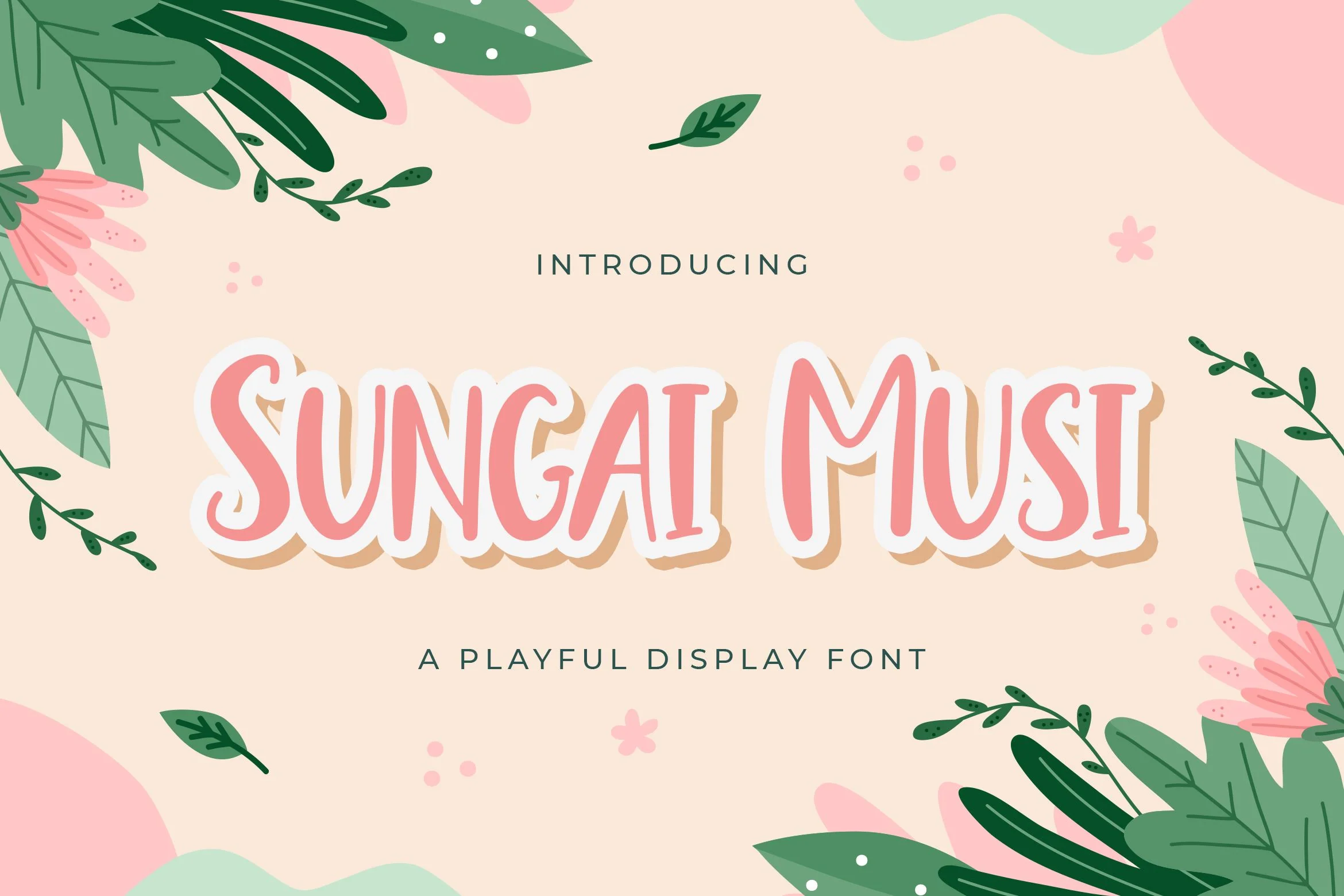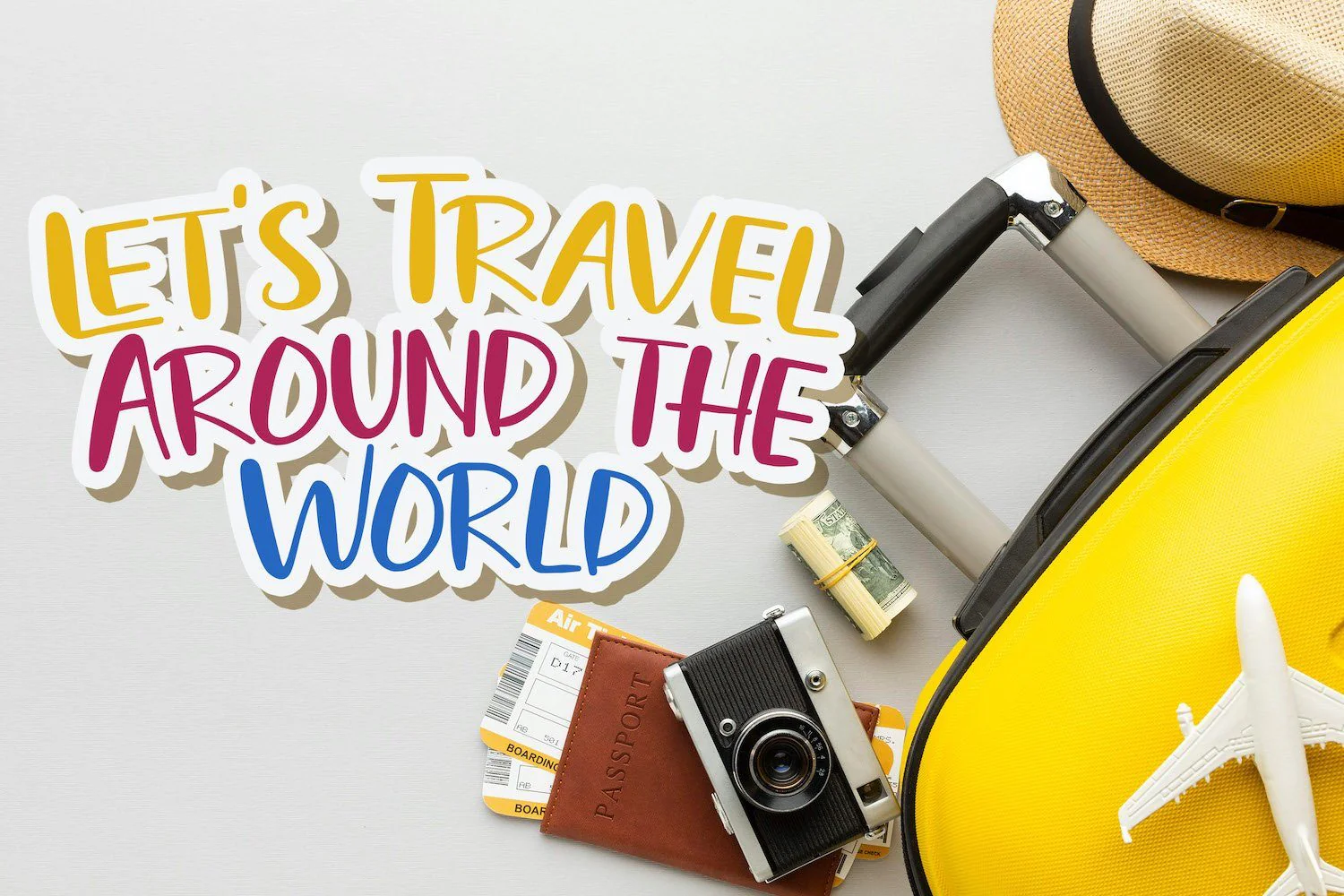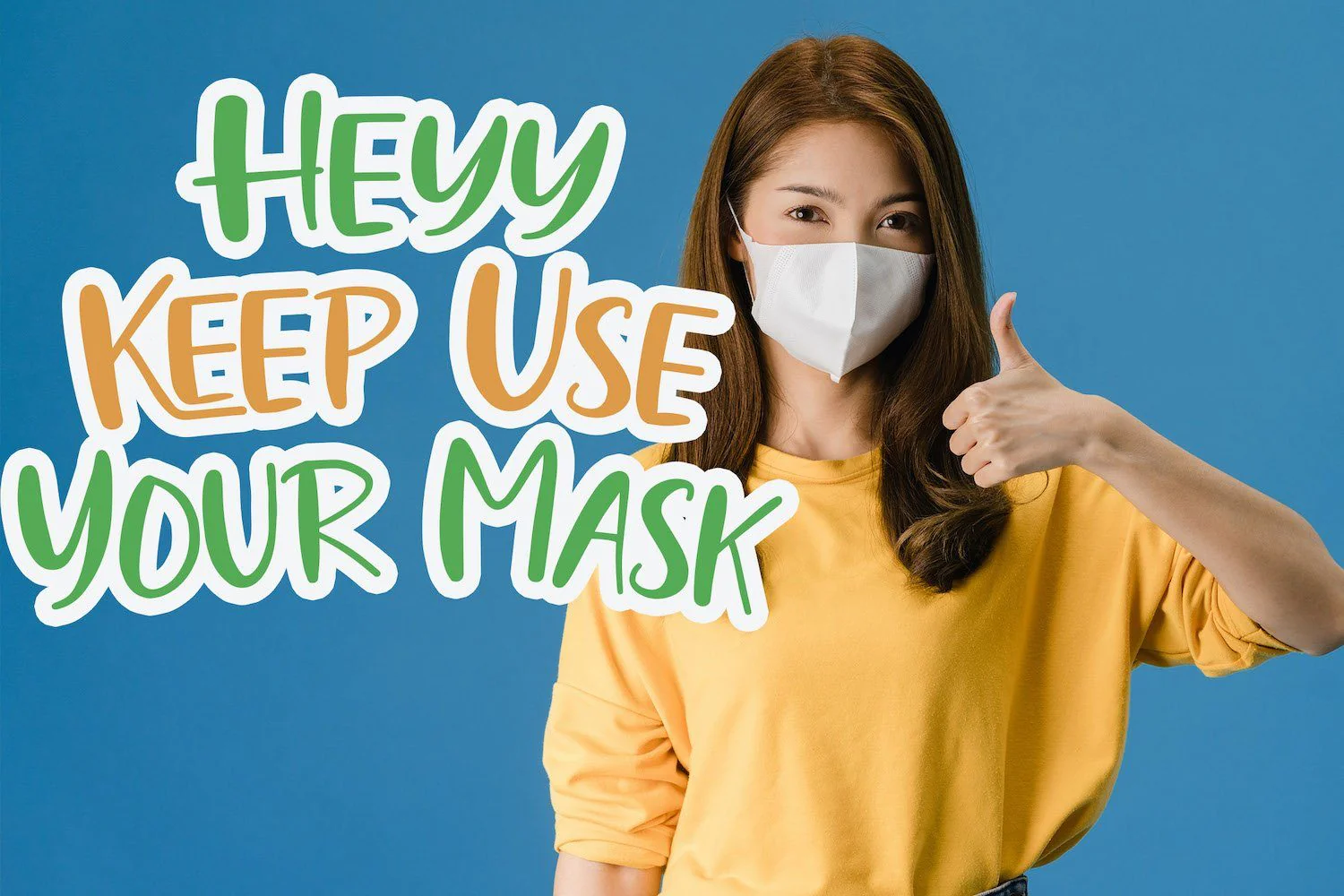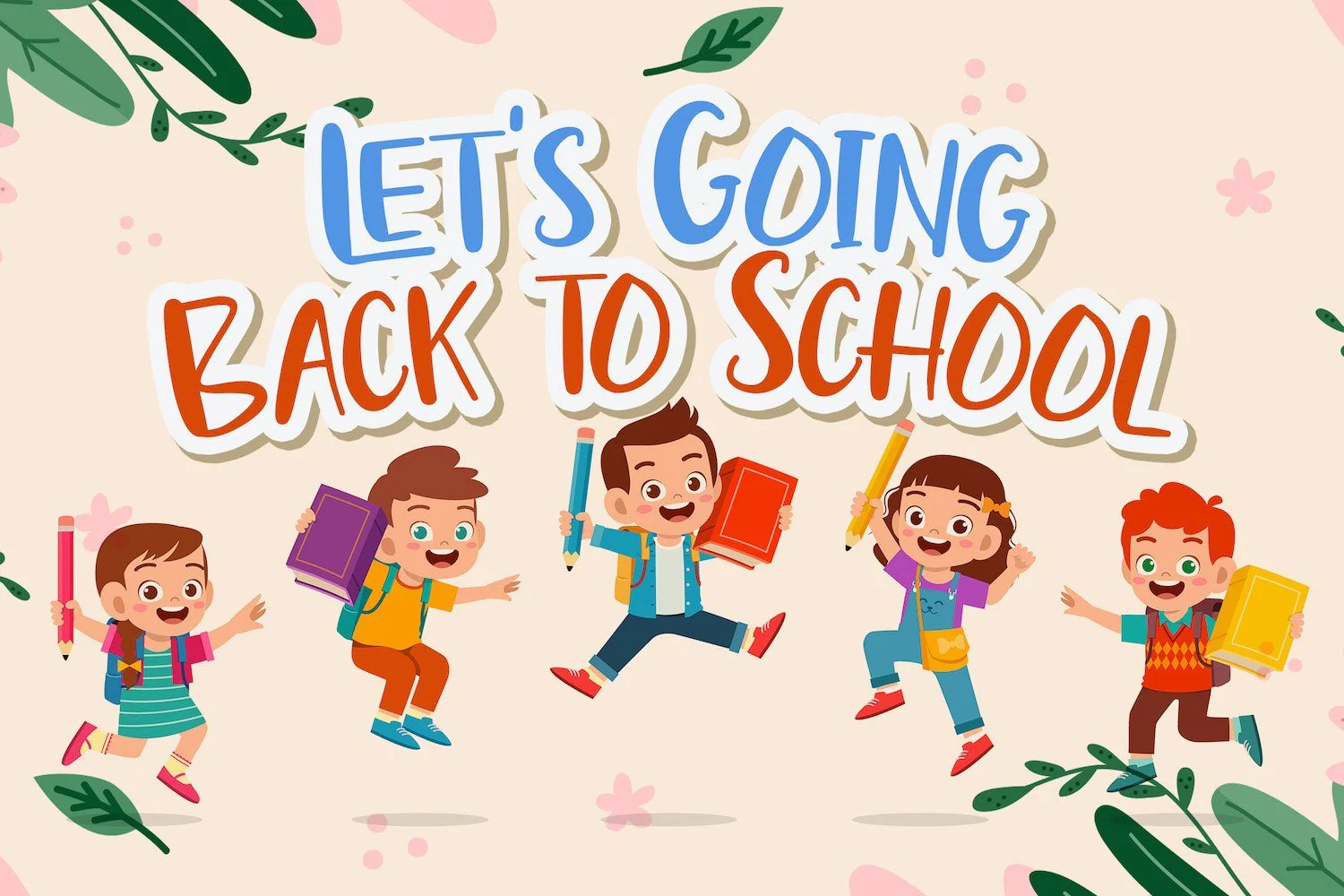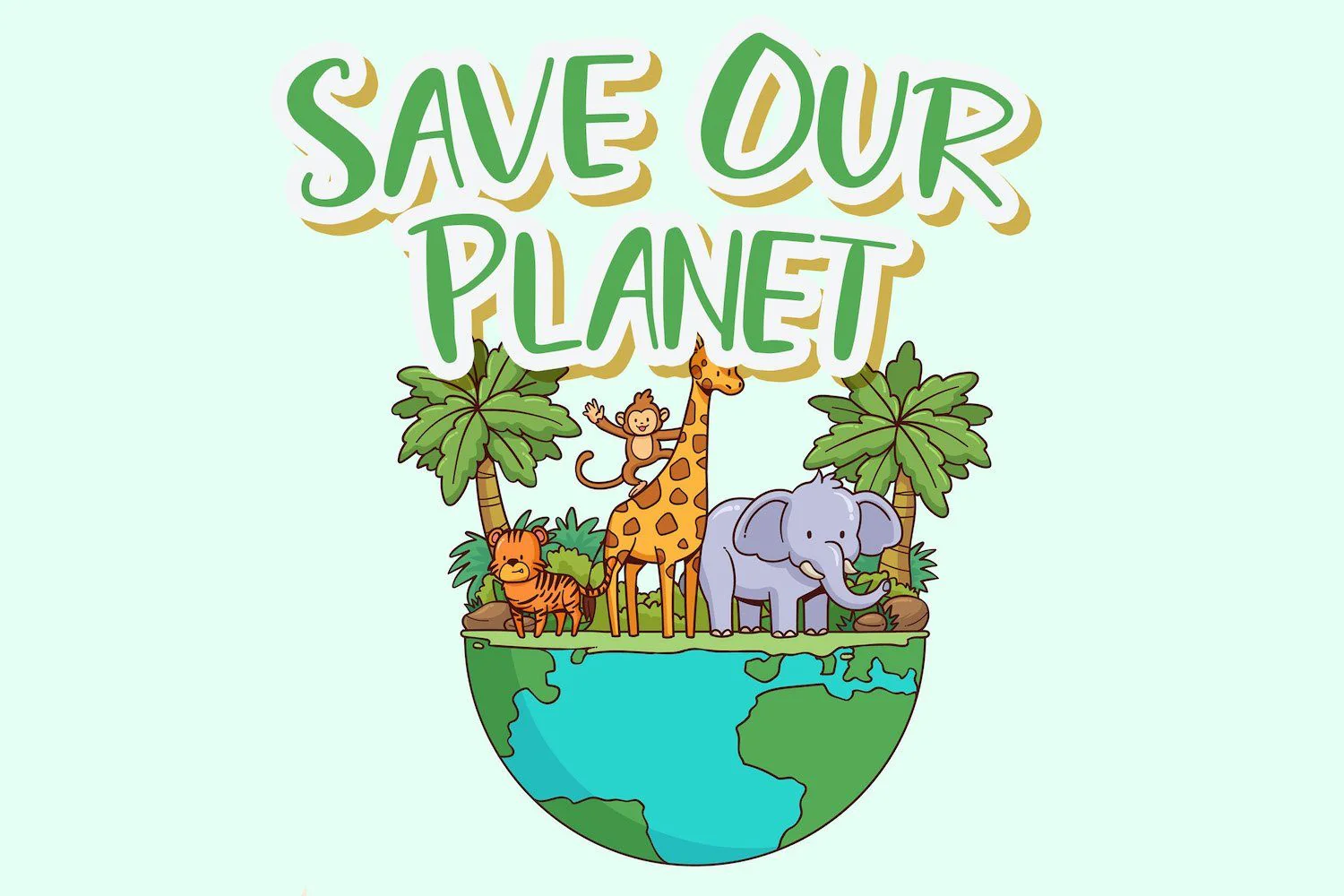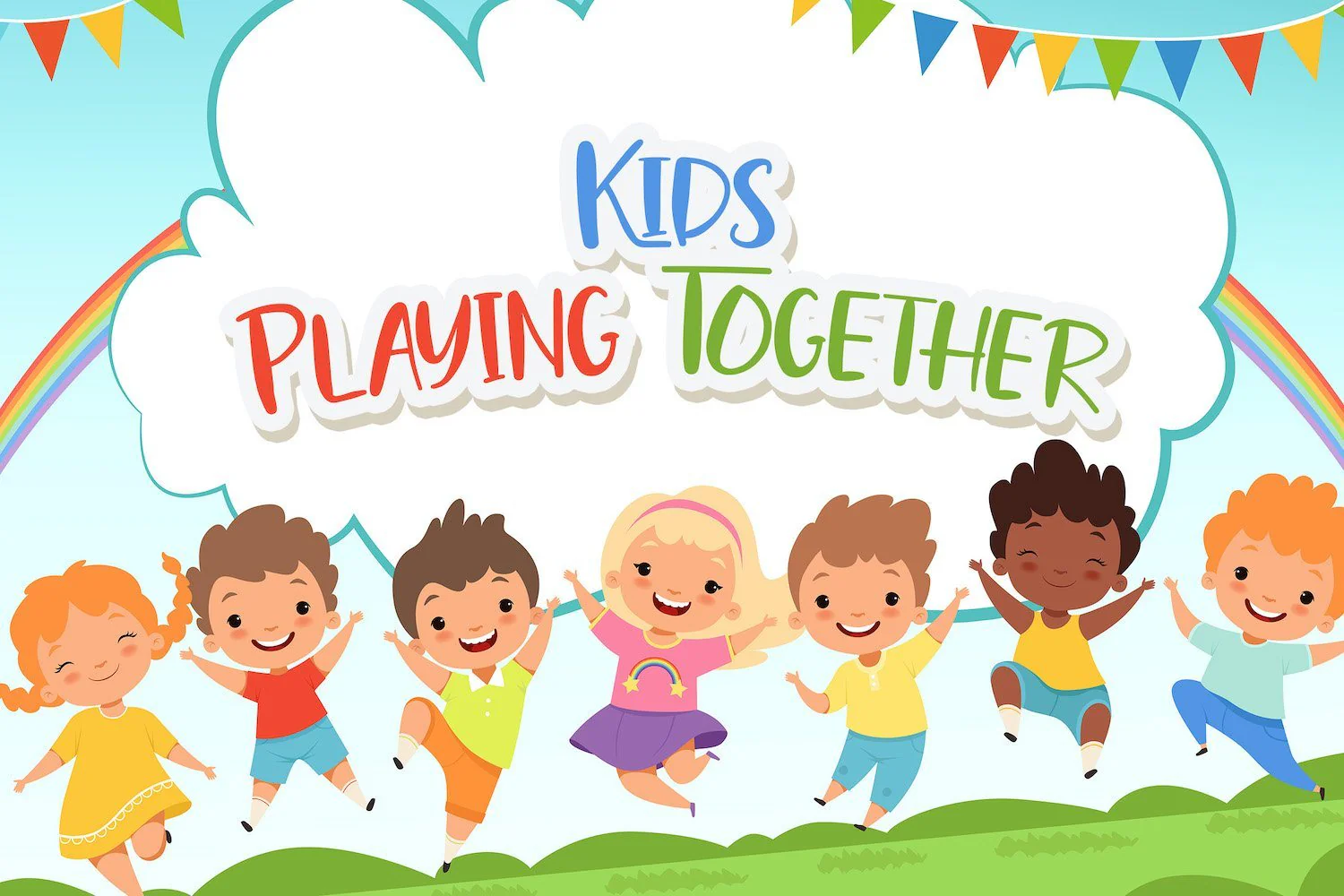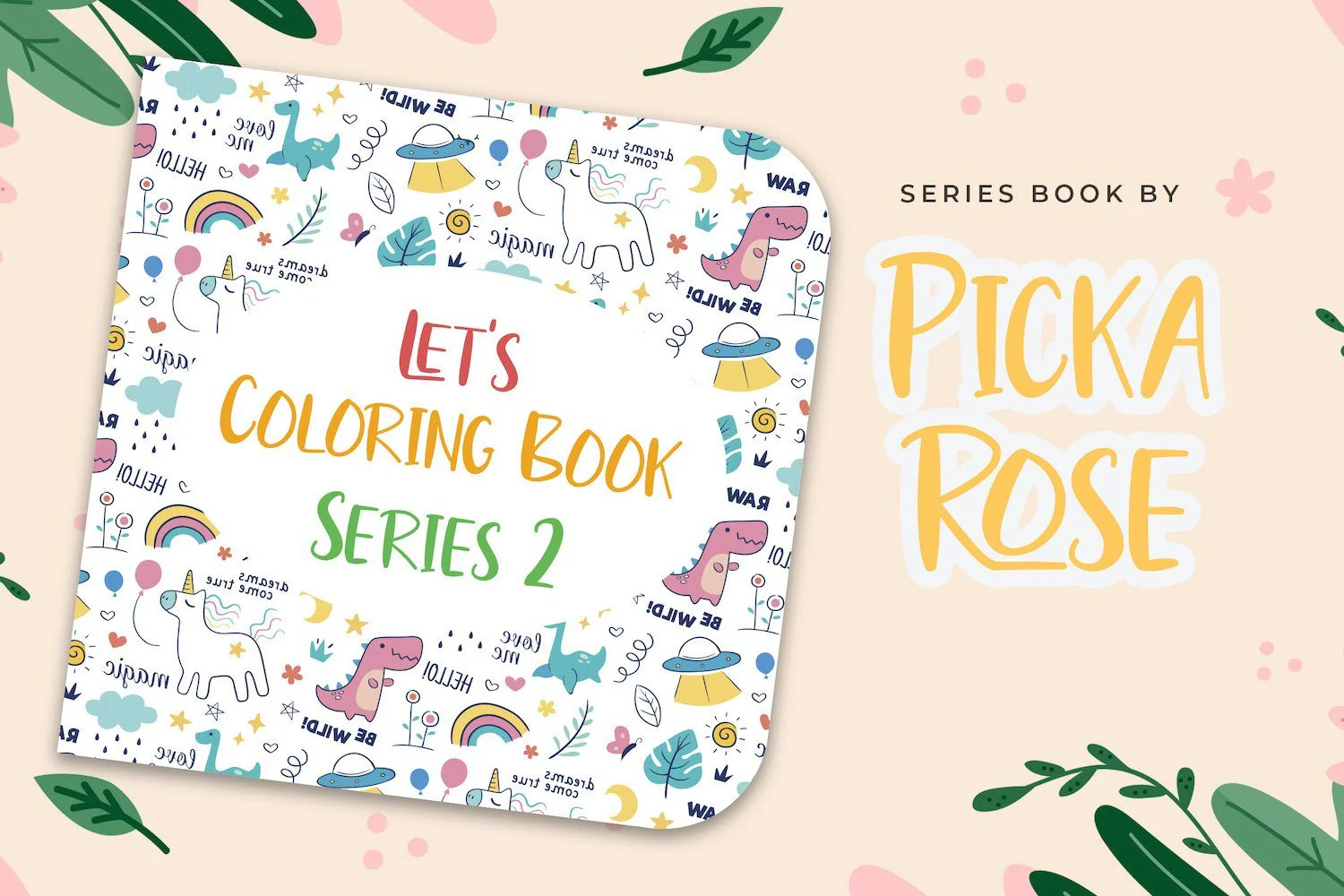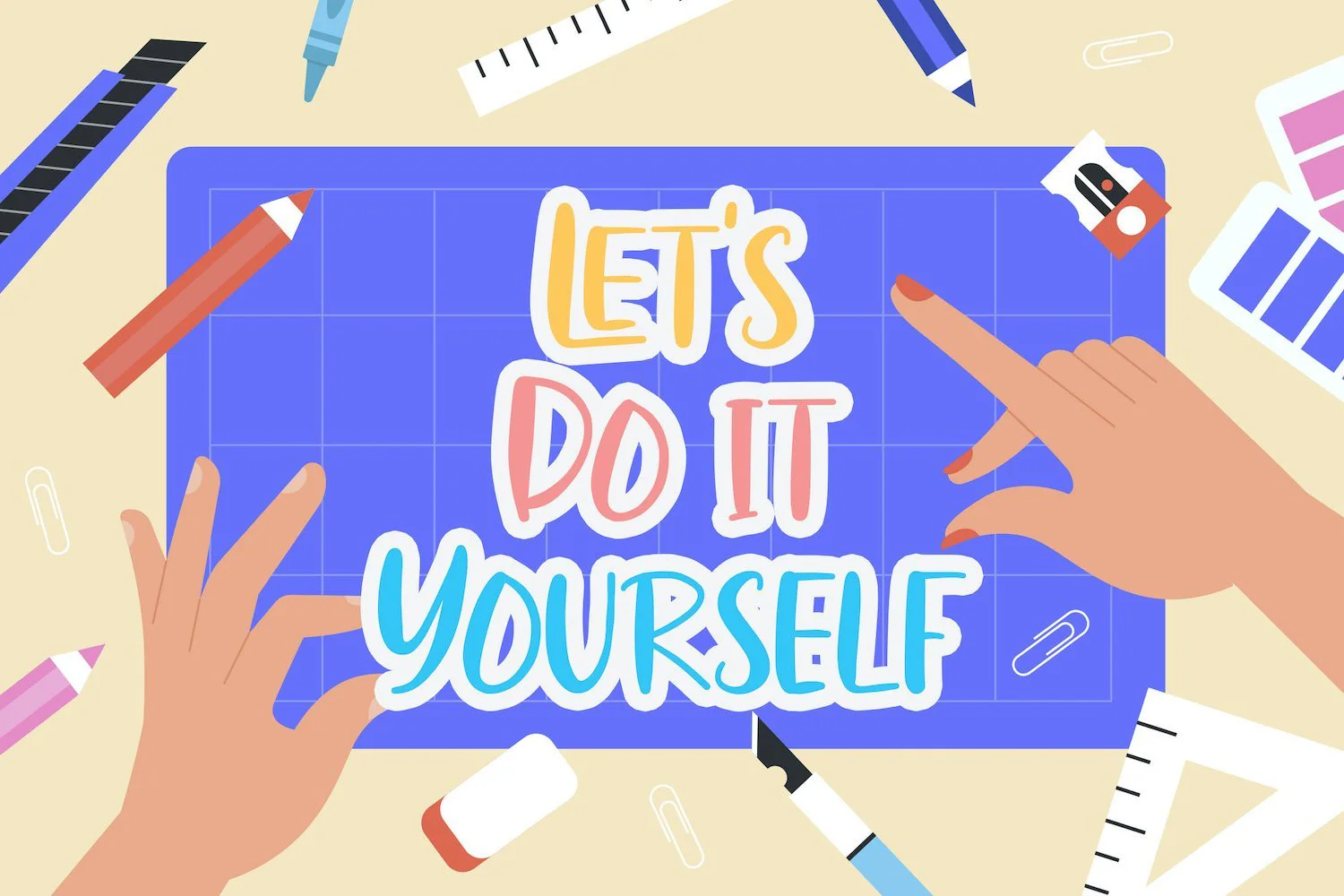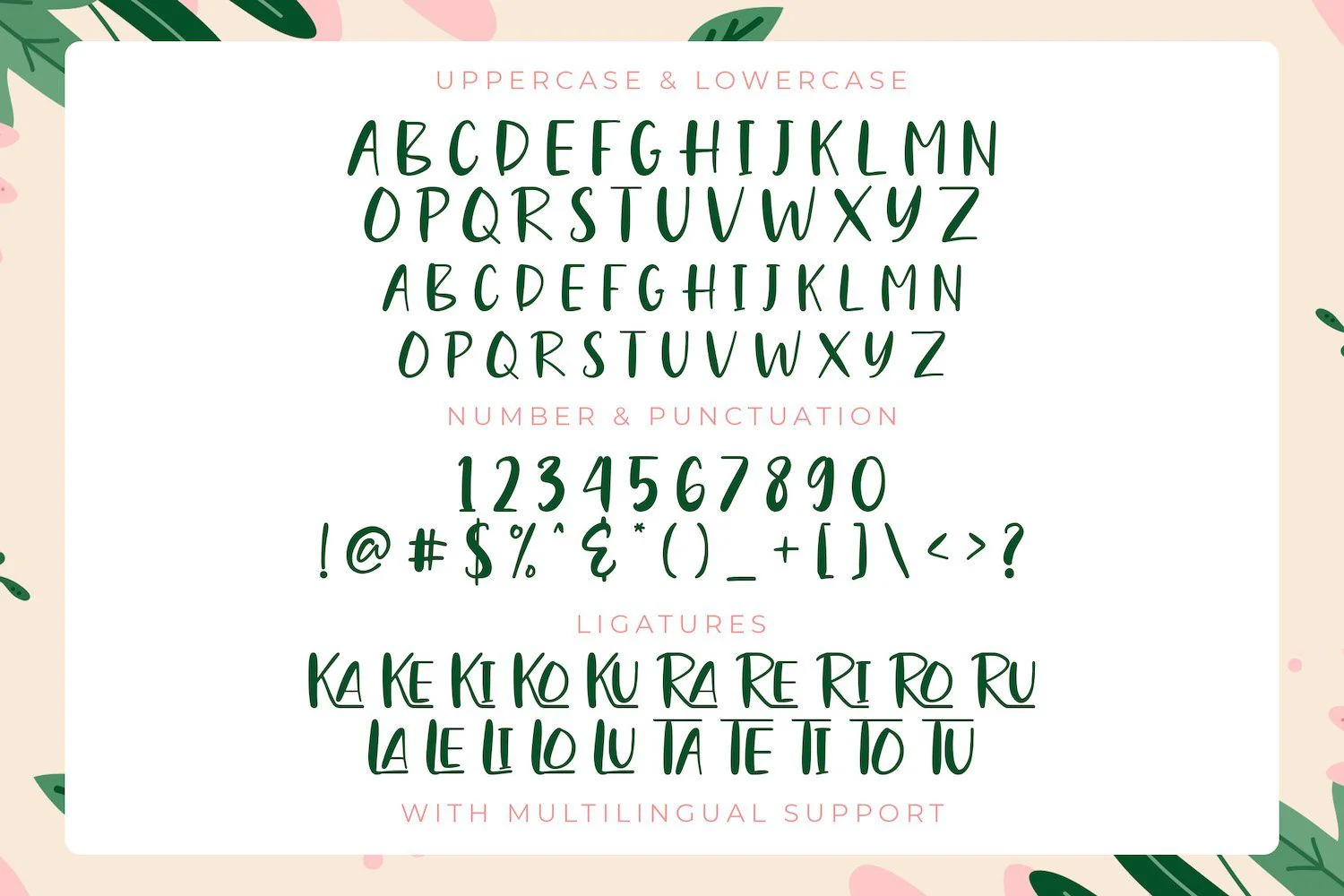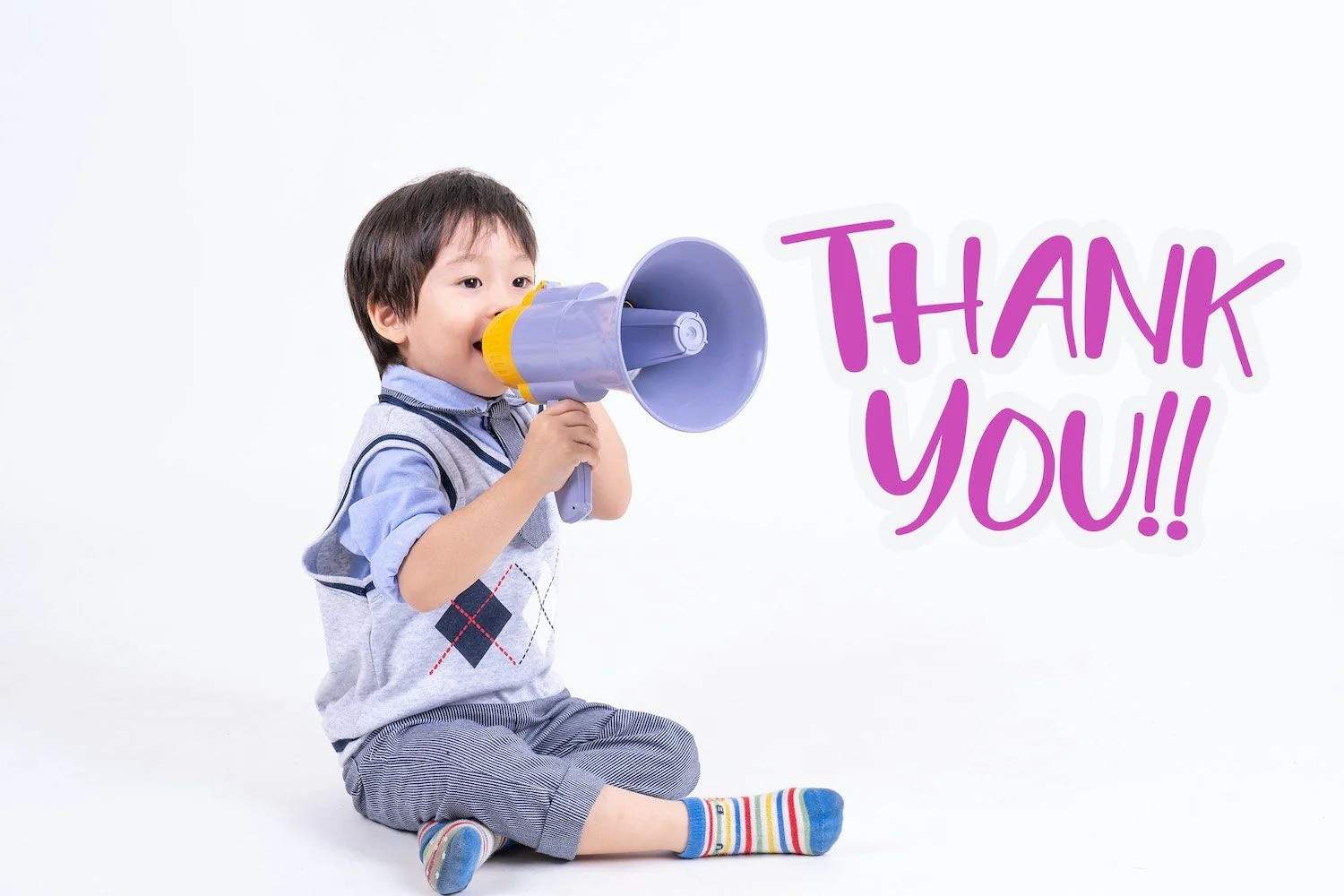
Sungai Musi - Playful Display Font
Introducing Sungai Musi - Playful Display Font
Sungai Musi is a fun display font. Playful and fresh, this font will be a hit for each of your children or school projects!
Introducing Sungai Musi - Playful Display Font
Sungai Musi is a fun display font. Playful and fresh, this font will be a hit for each of your children or school projects!